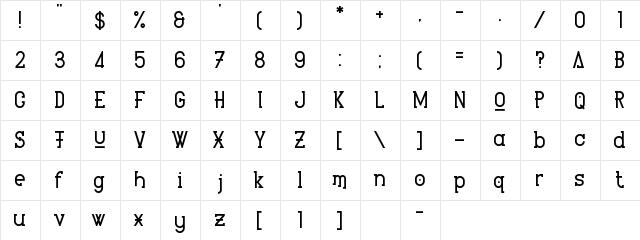
Heartbeat Synchronicity Regular
| Designer | Andrew McCluskey |
Design Context for Heartbeat Synchronicity Typeface
Heartbeat Synchronicity is a composed and adaptable typeface that performs quietly and consistently across a wide range of design contexts.